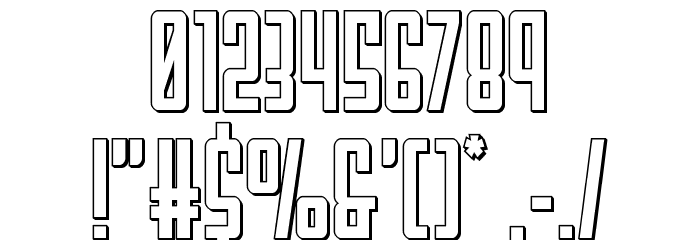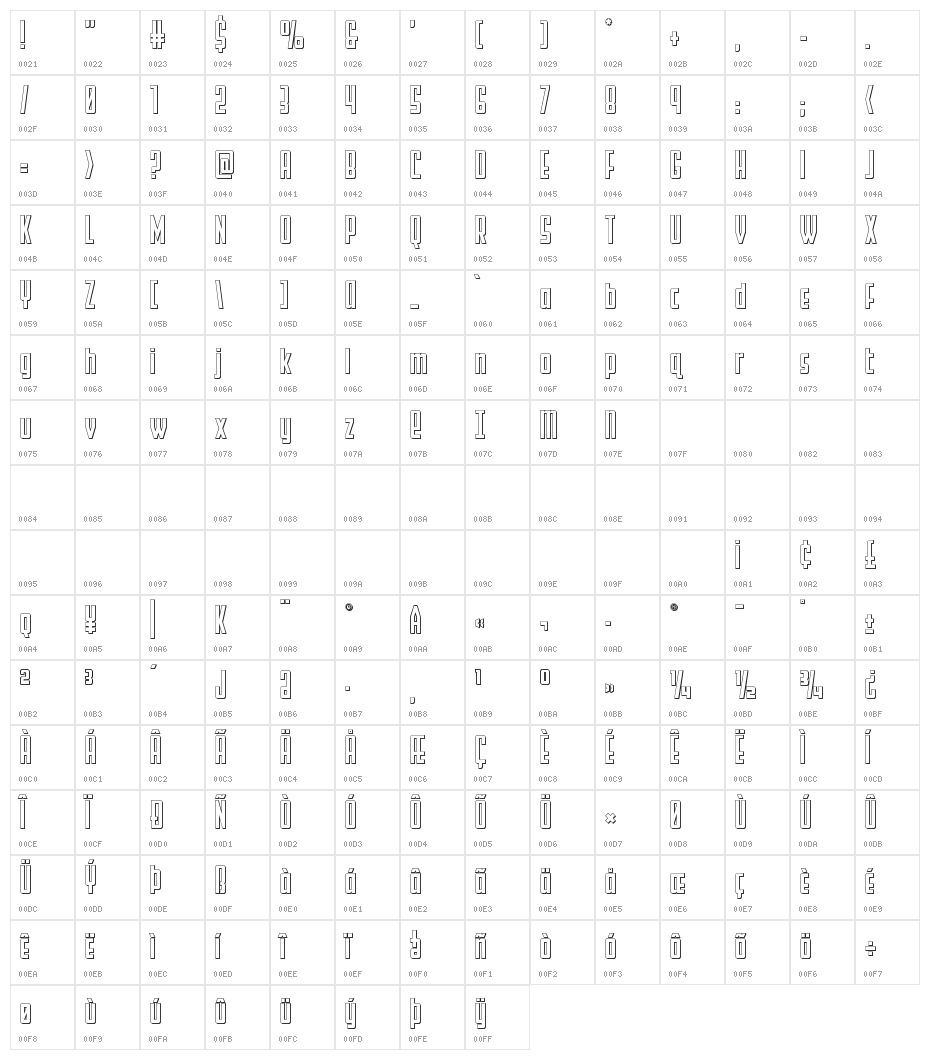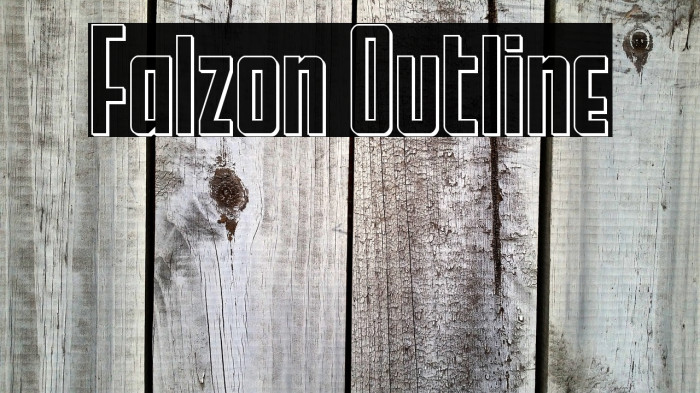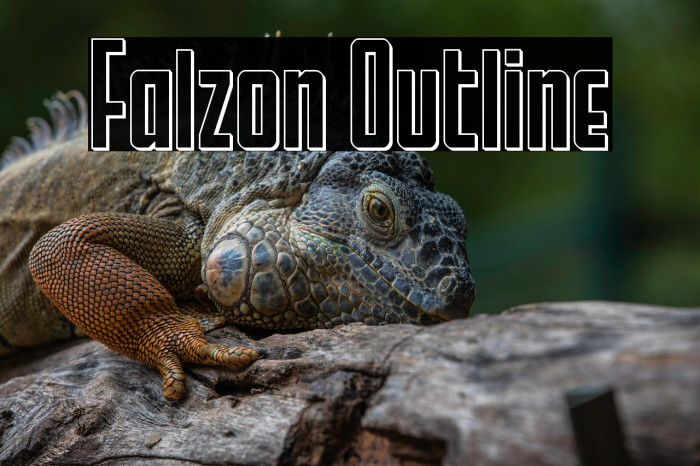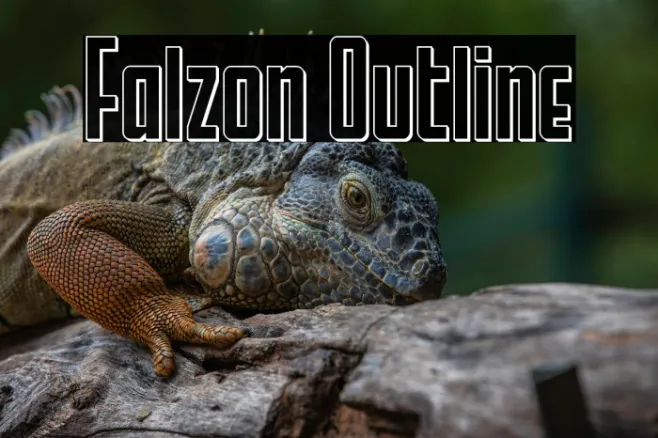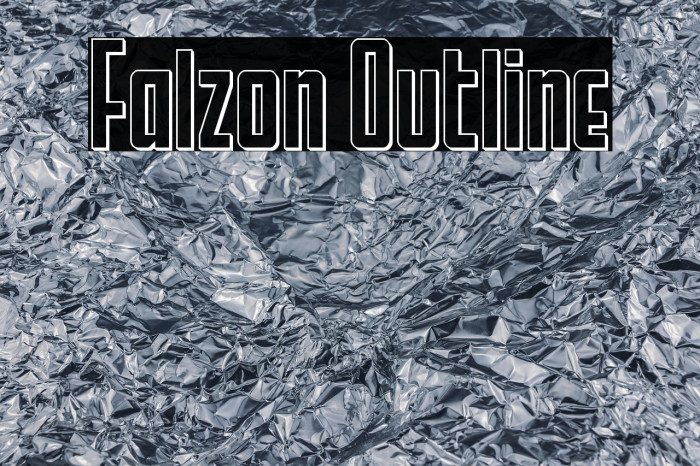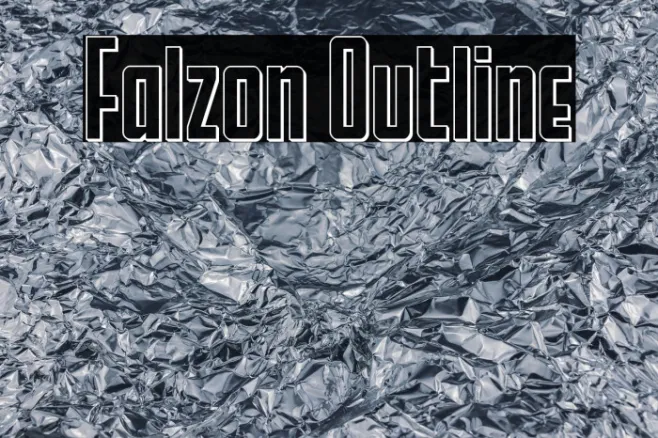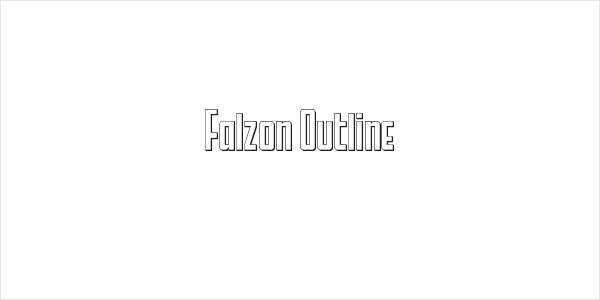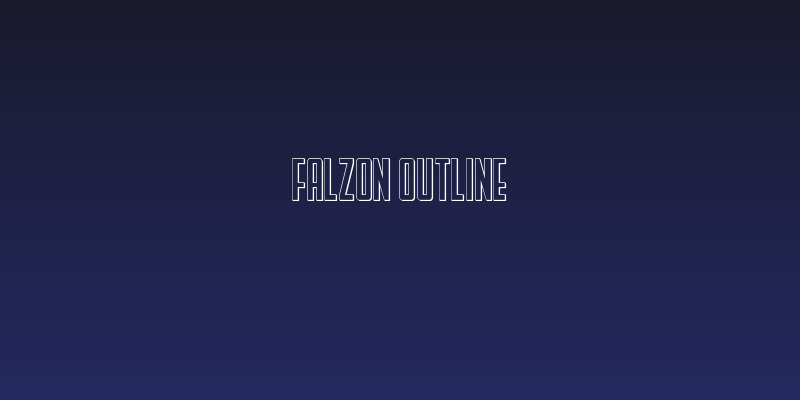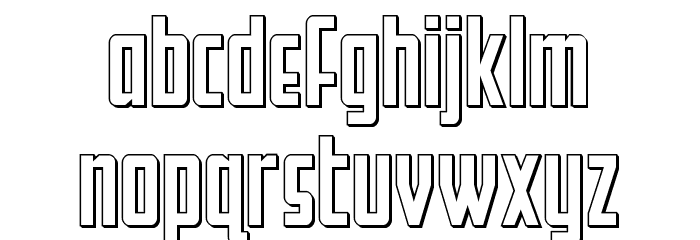
Falzon Outline Font
Falzon Outline Description
This font features a bold, geometric outline style that gives it a modern and striking appearance. The uppercase and lowercase letters maintain a consistent height, creating a uniform look across the alphabet. The characters are outlined with a medium thickness, providing a clear and defined shape without filling in the interior space. This design choice enhances readability while maintaining a unique aesthetic. The numerals and special characters follow the same outlined style, ensuring cohesion throughout the font set. Its clean lines and structured form make it suitable for various design applications where a contemporary and eye-catching typeface is desired.
| Proposed Projects | Ideal for branding, posters, headlines, and any design requiring a modern, eye-catching typeface. |